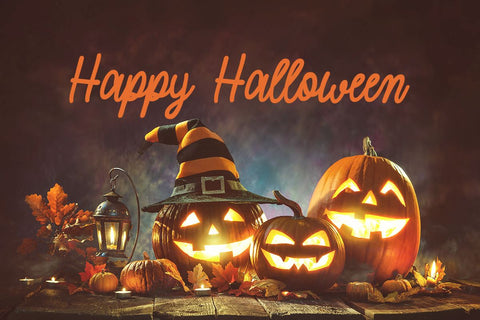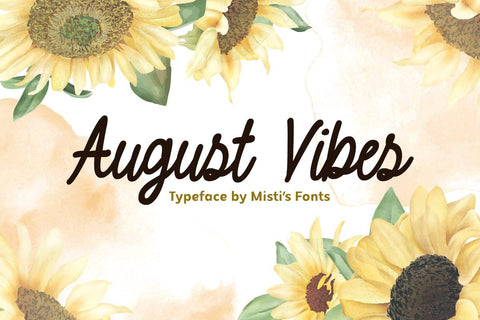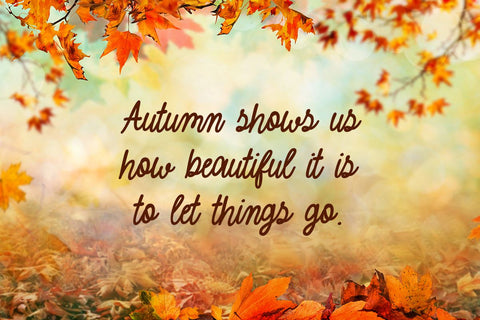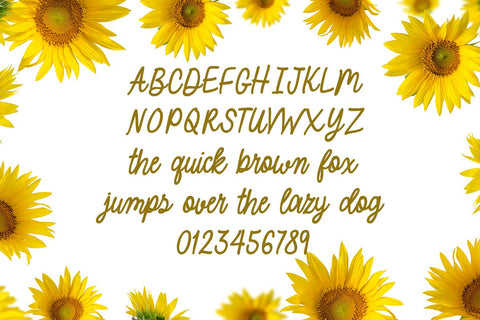
August Vibes
August Vibes is a beautiful and elegant font that radiates a warm and welcoming feeling. With its unique and stylish lettering, this font is perfect for adding a touch of sophistication and charm to any project. The letters have a sense of whimsy and playfulness. Whether you’re designing a logo, creating a poster, or designing a website, August Vibes will add a touch of elegance and class to your work.